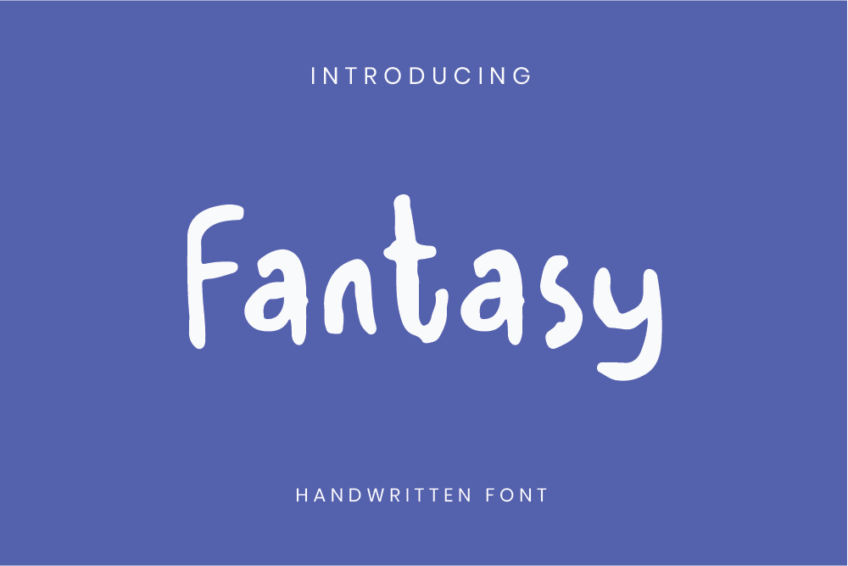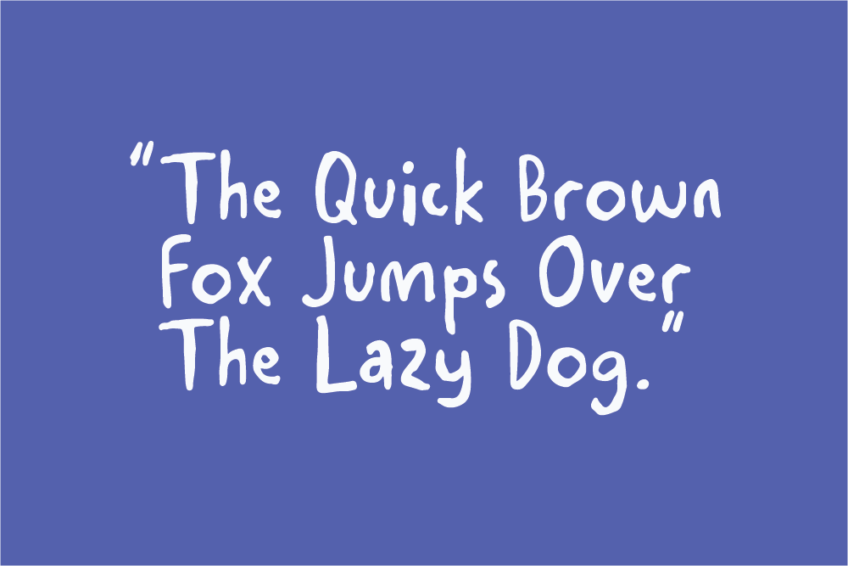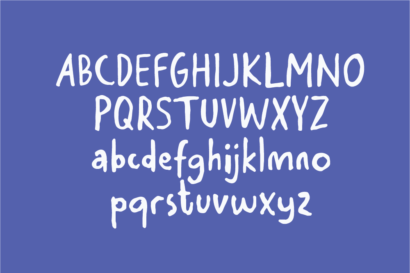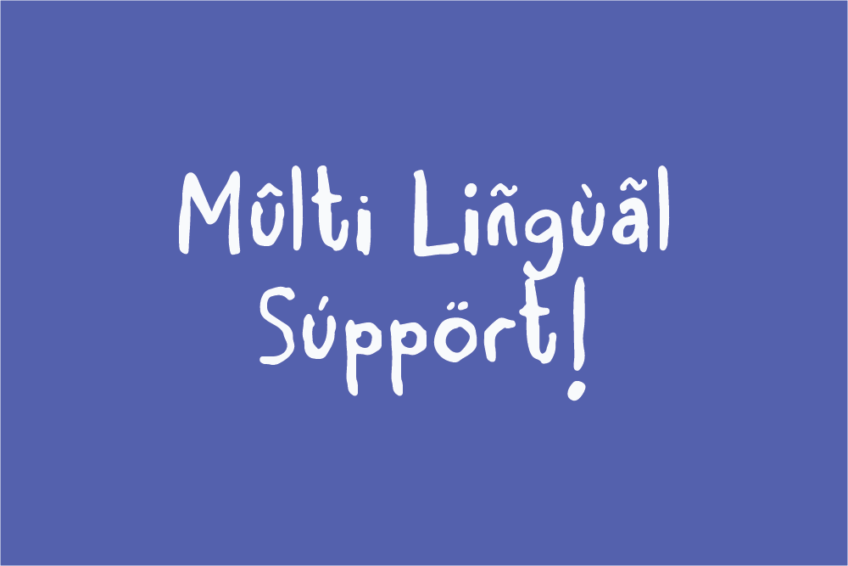
Fantasy HF
Immerse your cards and invitations in a world of enchantment with Fantasy Handwritten Font. This handwritten fonts for cards adds a touch of fantasy to your designs, making each word feel like a spell of creativity. With intricate details and flowing curves, Fantasy captures the essence of handwritten elegance.
Ideal for a variety of occasions, from greeting cards to wedding invitations, Fantasy Handwritten Font brings a unique charm that sets your designs apart. The versatility of this fonts for cards allows you to create captivating and personalized messages that leave a lasting impression.
Transform your cards into works of art with Fantasy Handwritten Font – where imagination meets elegance in every stroke.